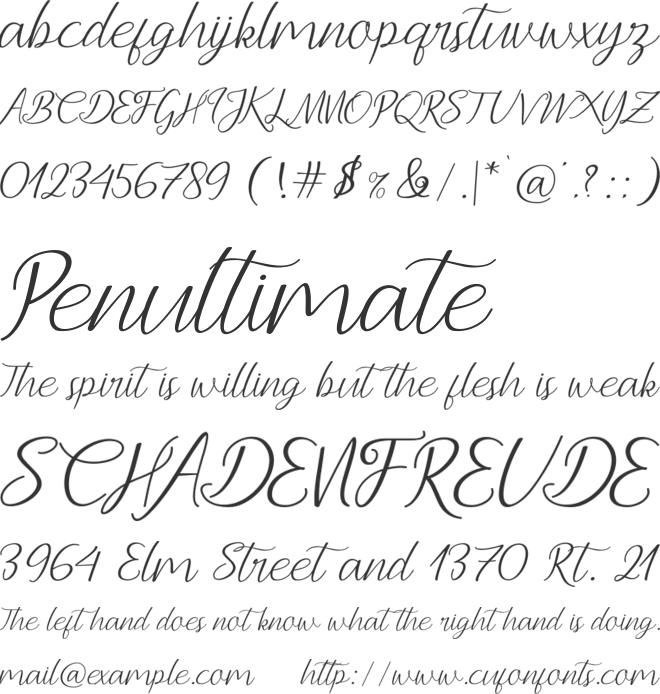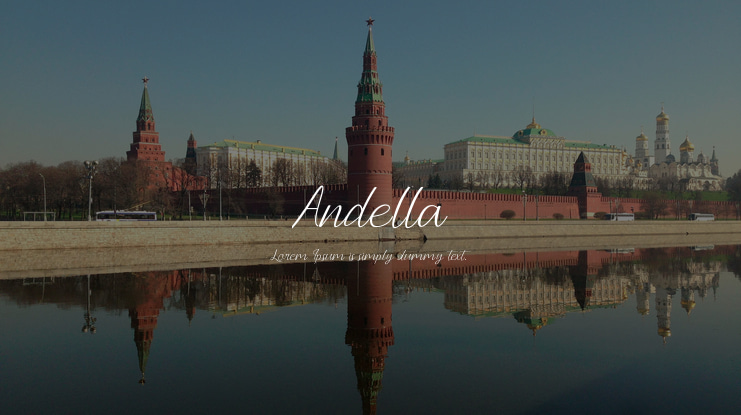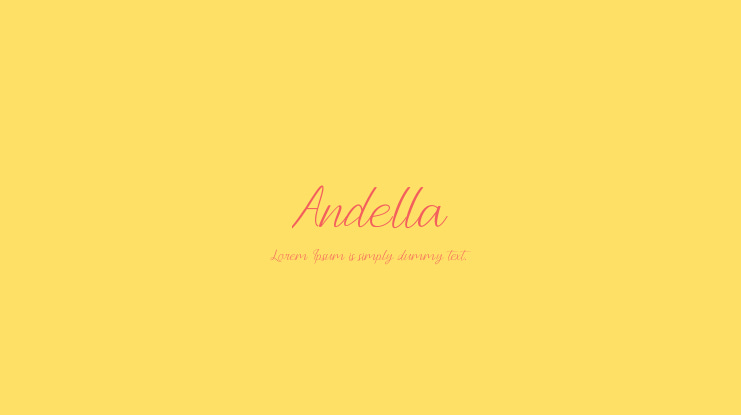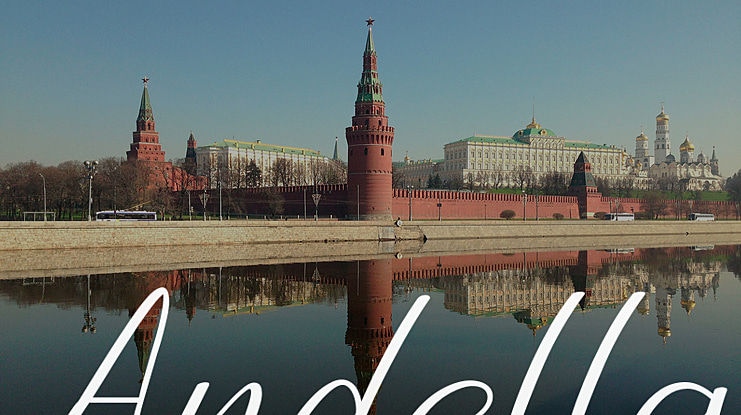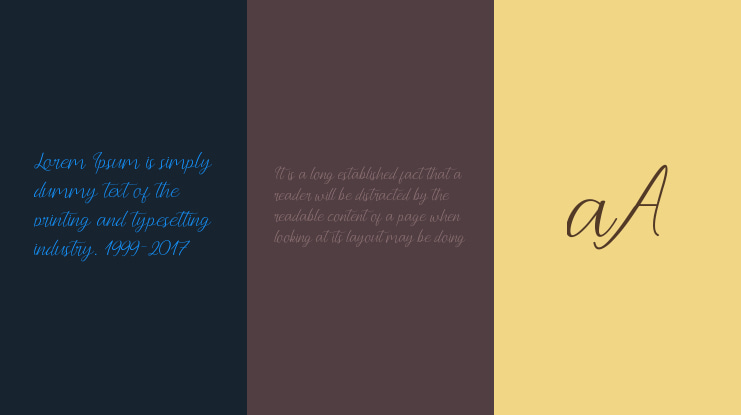
Andella Font Family
Andella Script modern script with a handmade calligraphy style, decorative characters and a dancing baseline! So beautiful on invitation like greeting cards, branding materials, business cards, quotes, posters, and more!!